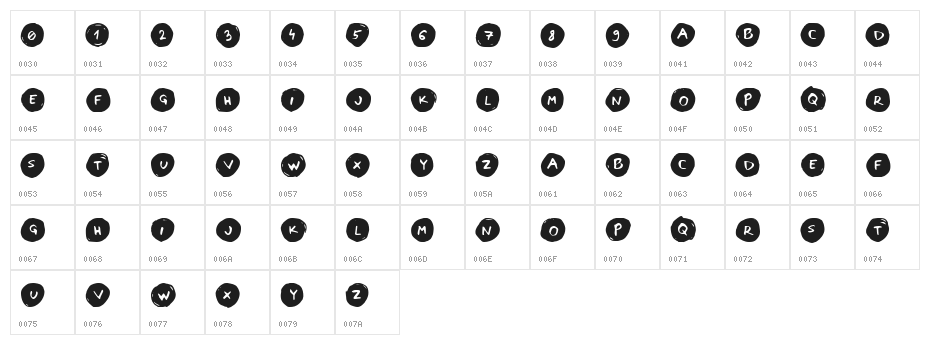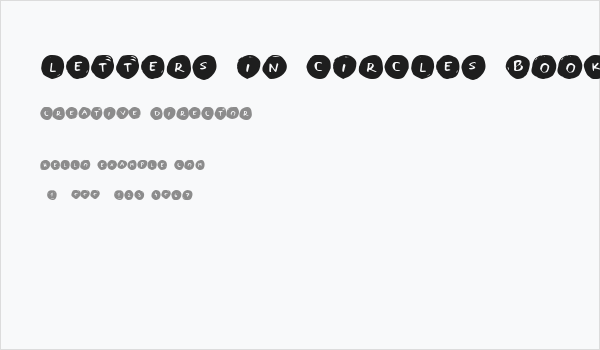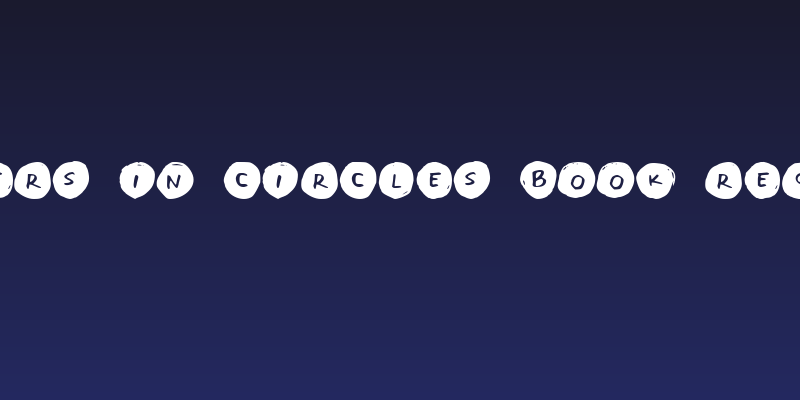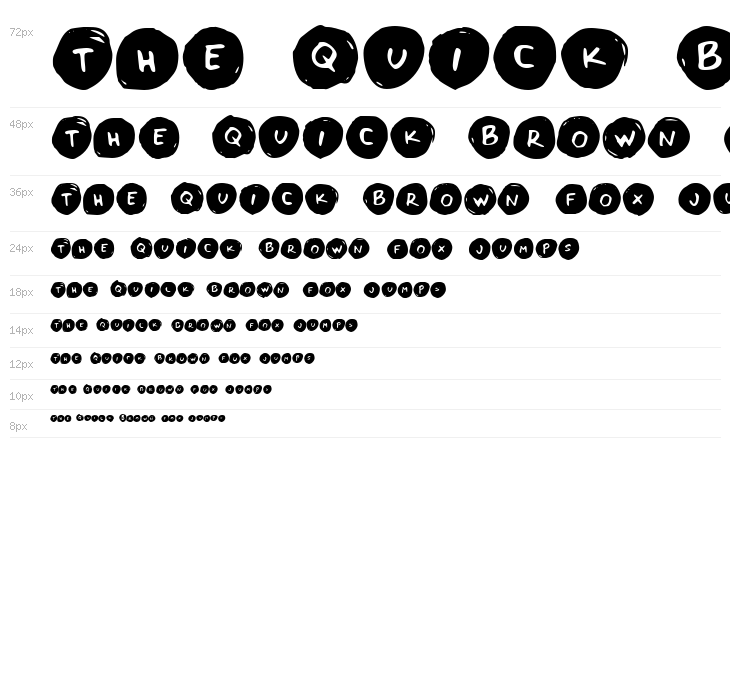
Letters in Circles Book Regular Font
Letters in Circles Book Regular Description
This playful and unique font features bold, hand-drawn letters enclosed within imperfect circles, giving it a whimsical and artistic appearance. The letters are uppercase and lowercase, with a consistent style that maintains a casual and approachable feel. The numbers and special characters follow the same design, ensuring uniformity across all elements. The circles are slightly irregular, adding to the hand-crafted aesthetic, while the letters inside are clear and easy to read. This font is ideal for projects that require a fun and informal touch, such as children's books, creative posters, or playful branding.
| Overall Style | Whimsical, Artistic |
| Proposed Projects | Children's books, creative posters, playful branding, greeting cards, and educational materials. |